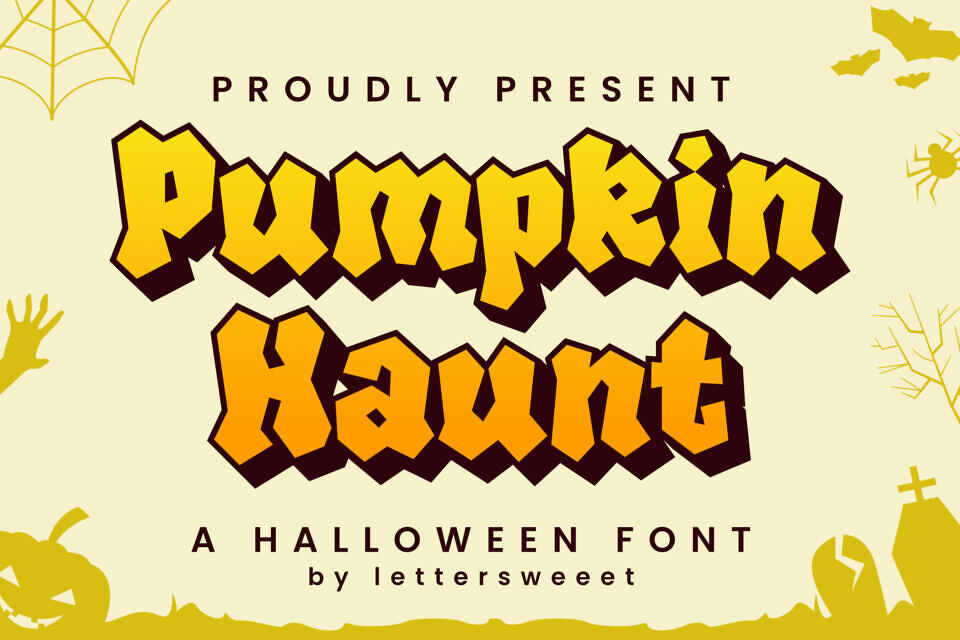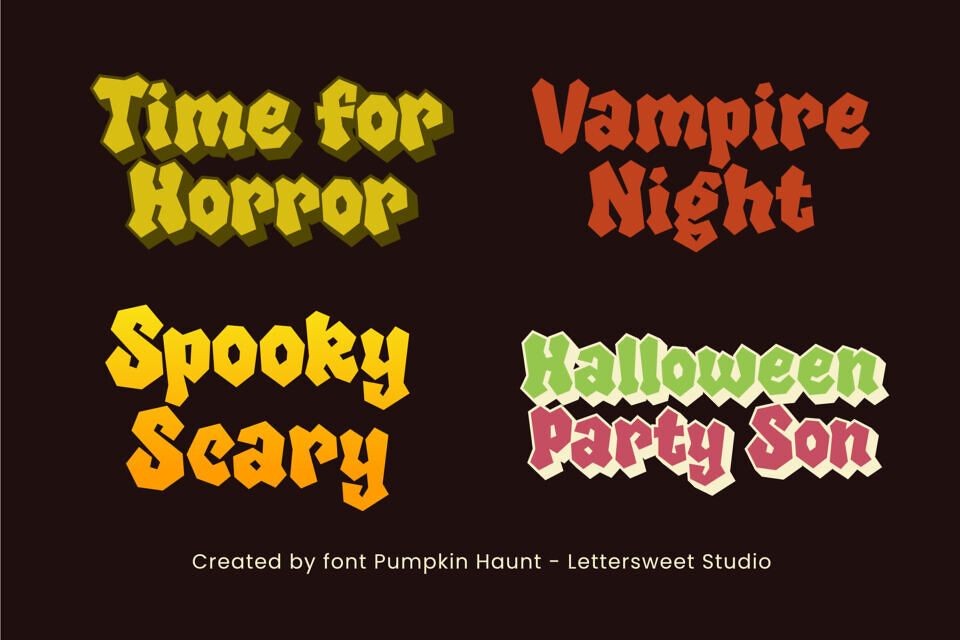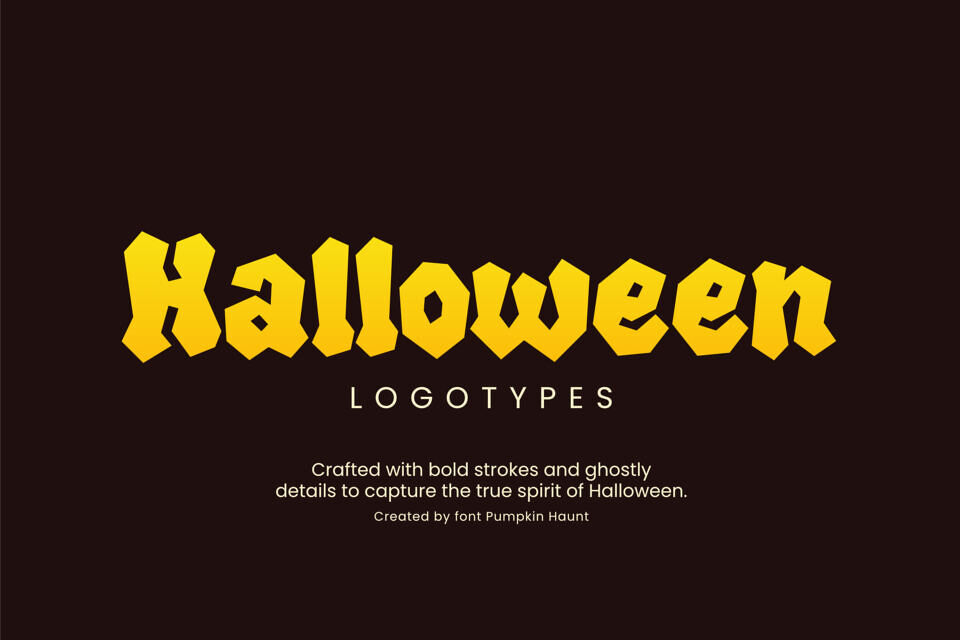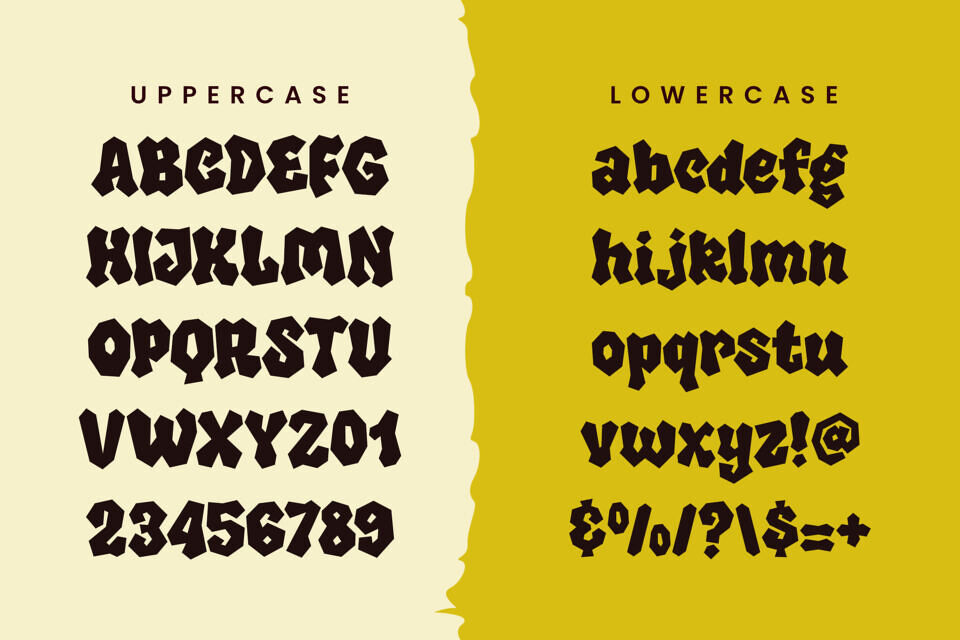
Pumpkin Haunt is a bold, spooky-cute Halloween font that turns any design into a haunted headline. Chunky letterforms, chiseled edges, and a built-in shadow style create instant depth—perfect for posters, party invites, treat bag labels, stickers, YouTube thumbnails, and classroom crafts.
Its playful “pumpkin patch” vibe keeps things fun while still delivering that eerie October mood. Use Pumpkin Haunt for titles, logos, and big captions whenever you want high-impact, readable Halloween graphics in seconds.